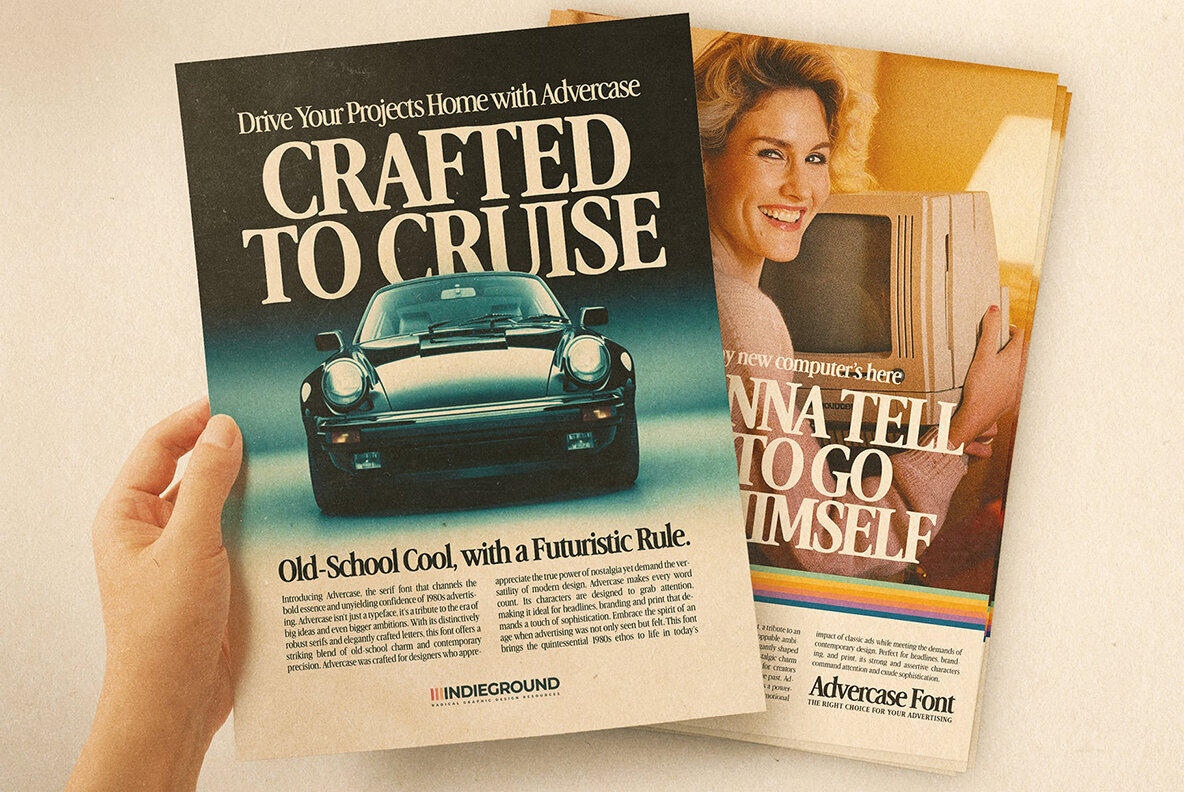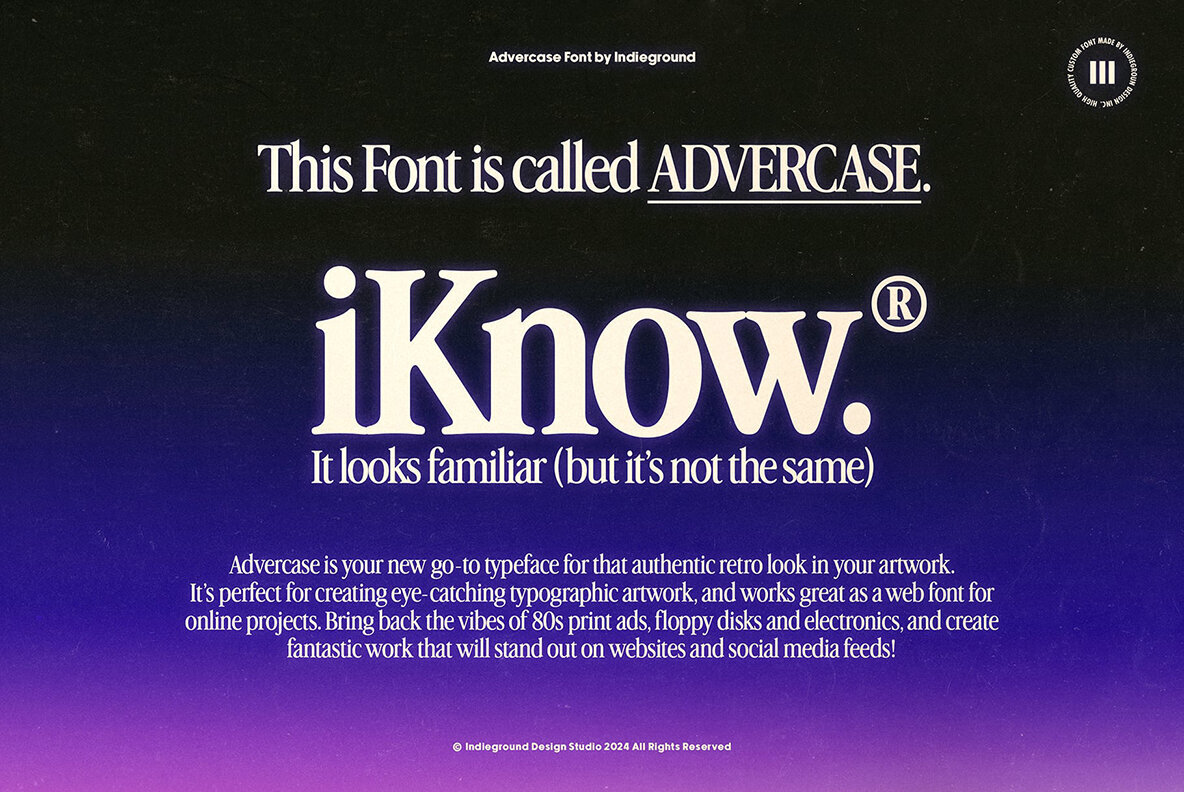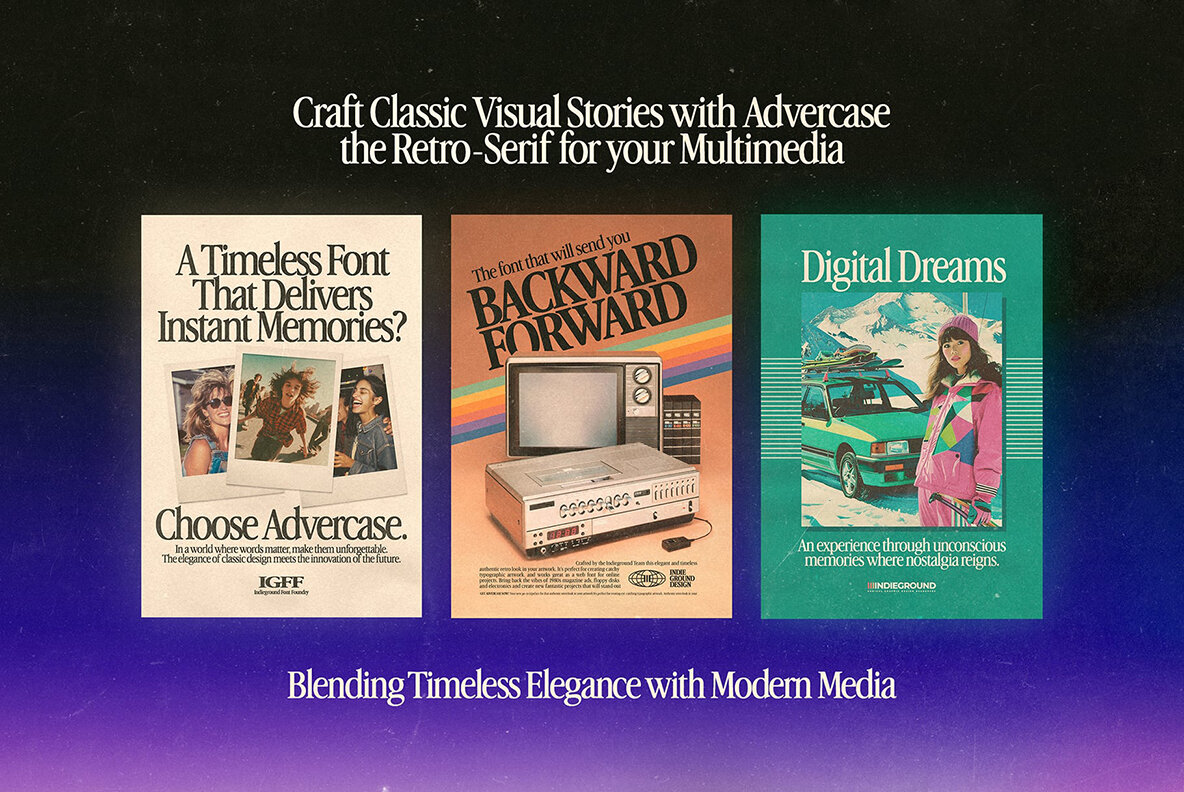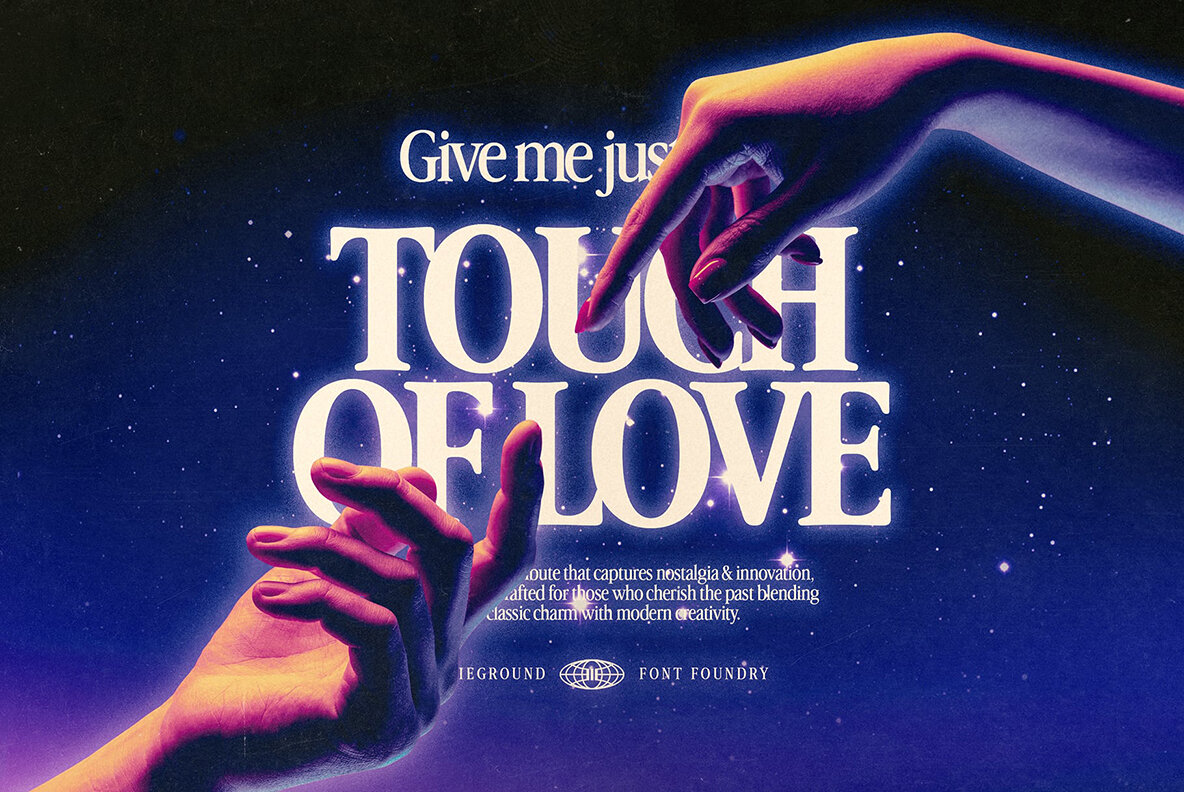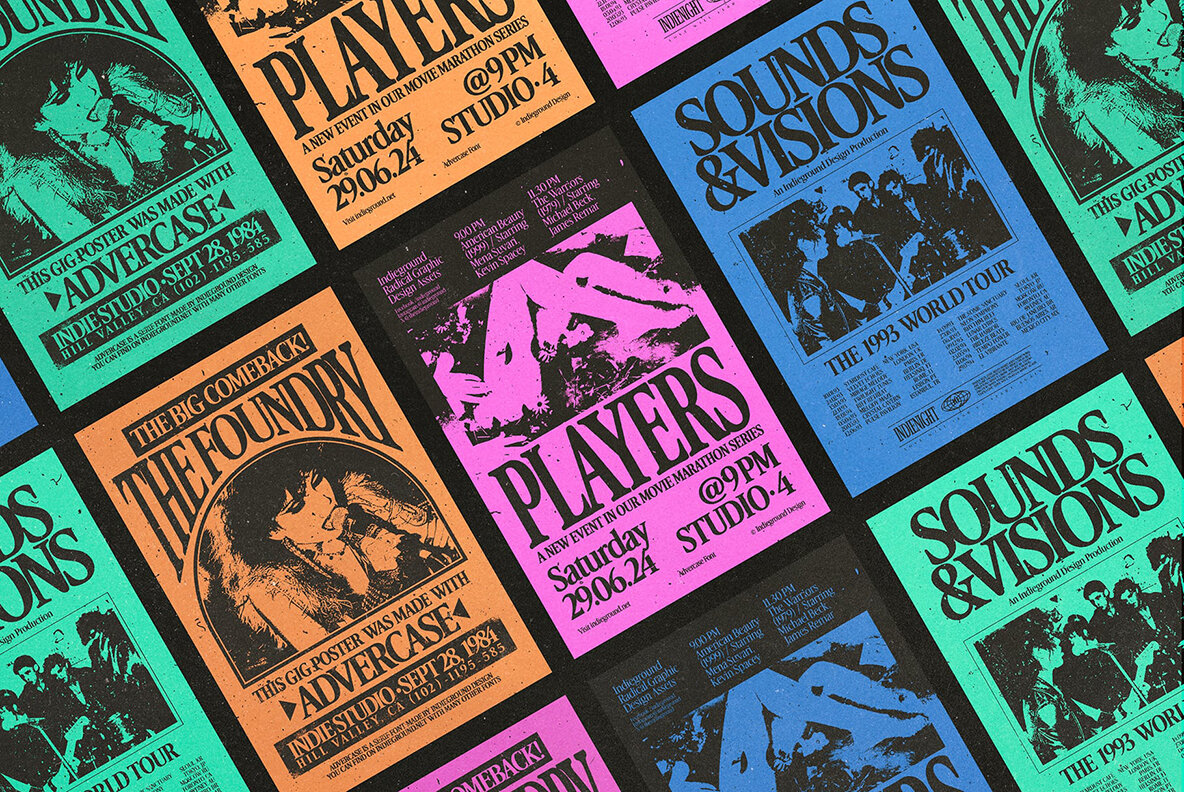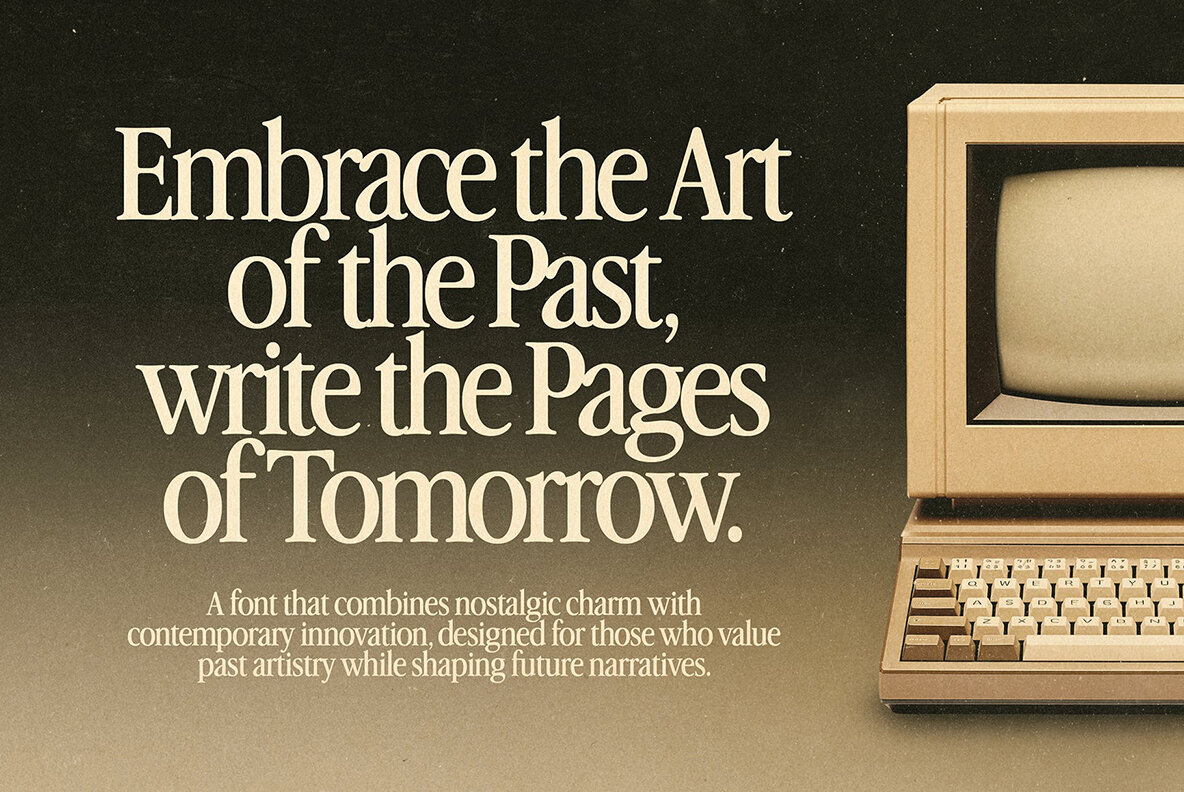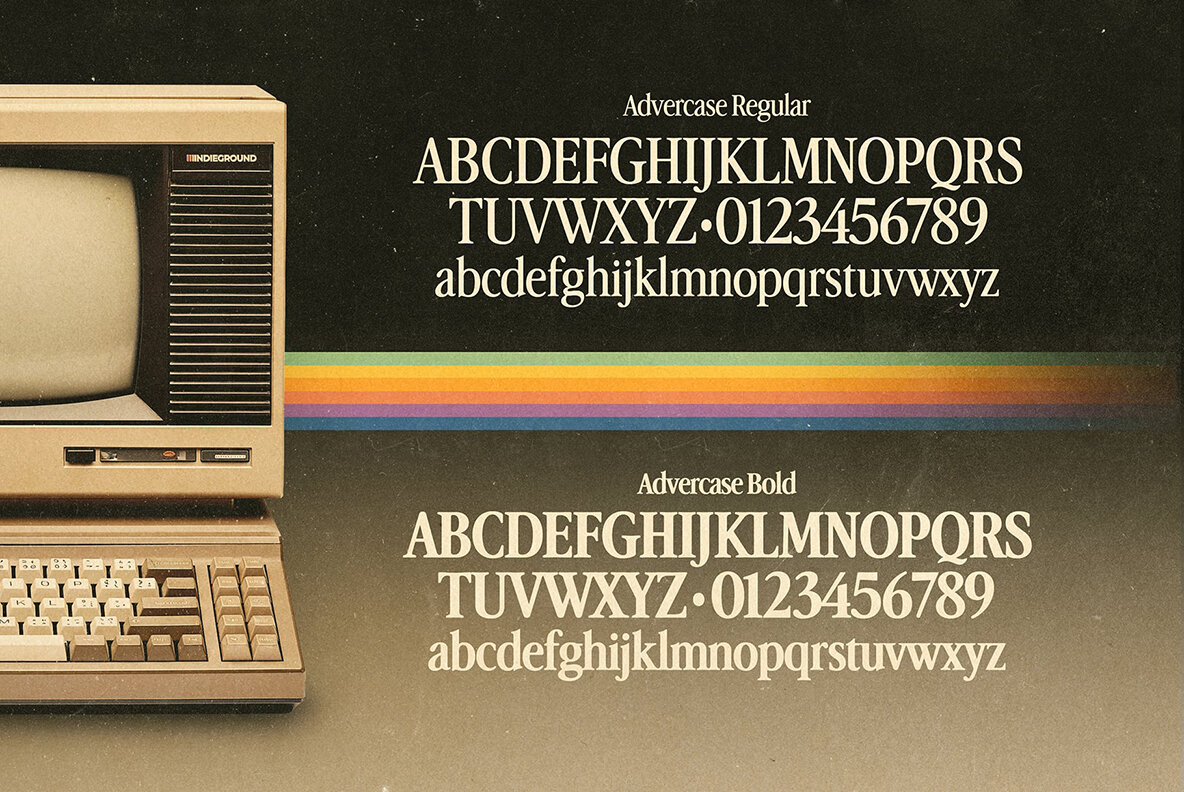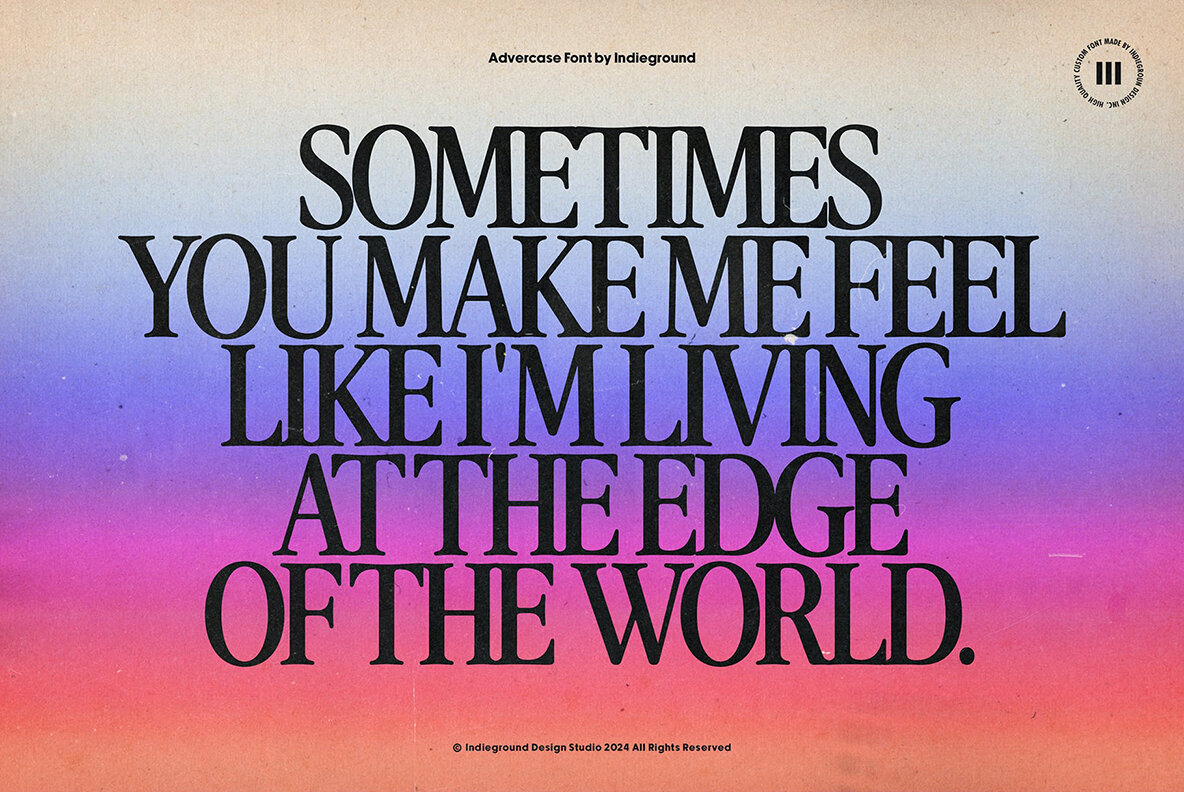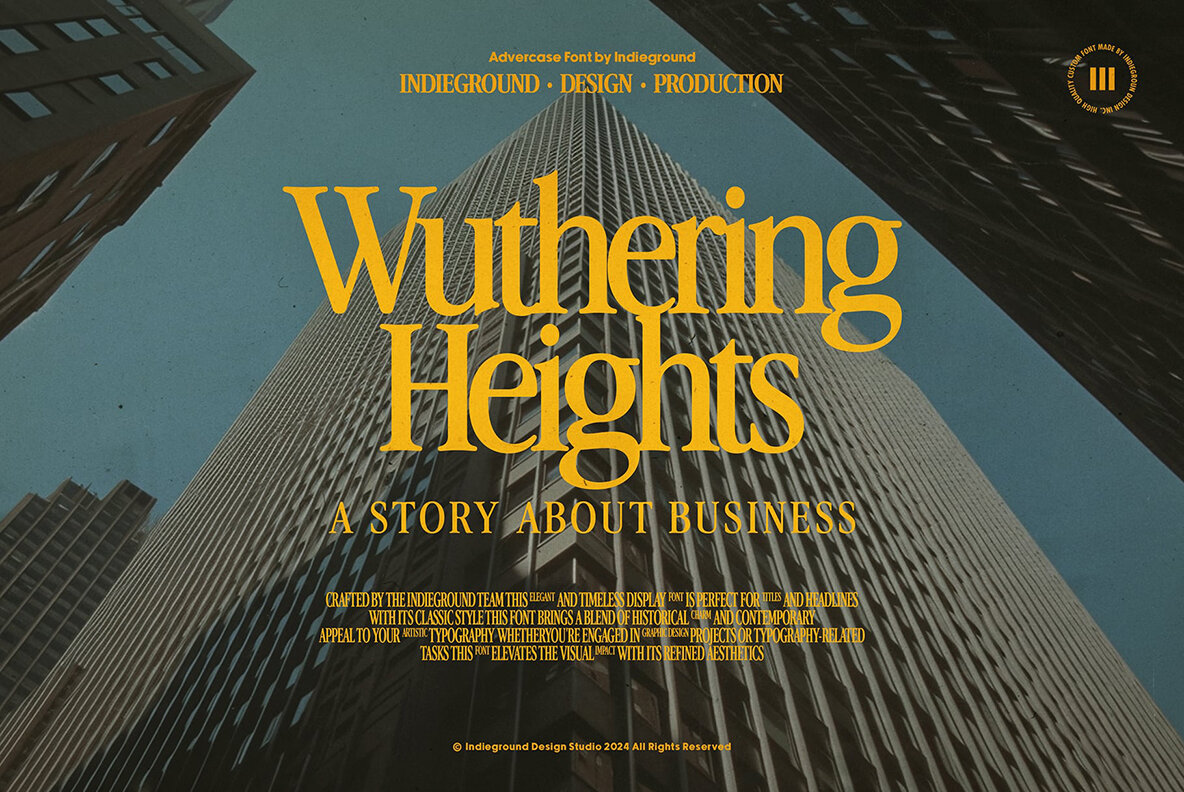
Advercase Font
Advercase Font by Indieground This elegant font will bring back the classic atmospheres of vintage ads and old personal computers! Advercase is your new go-to font for that authentic retro look in your artwork. It's perfect for creating eye-catching typographic artwork, and works great as a web font for online projects. Bring back the vibes of 80s print ads, floppy disks and electronics, and create fantastic work that will stand out on websites and social media feeds! This awesome retro font is based on Apple's Garamond adaptation and use of the typeface in their advertising campaigns during the 80s and 90s. Designed with love and attention by the Indieground Team to meet the needs of creative professionals, it offers the freedom to design anything that needs a retro, vintage feel while maintaining an elegant, contemporary edge. Adding to its versatility, it integrates into various design projects, elevating them with its unique blend of past and present aesthetics.